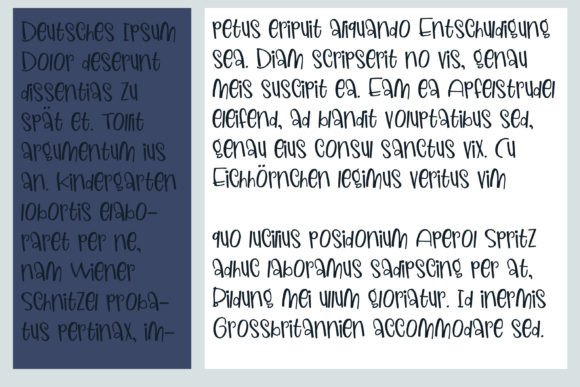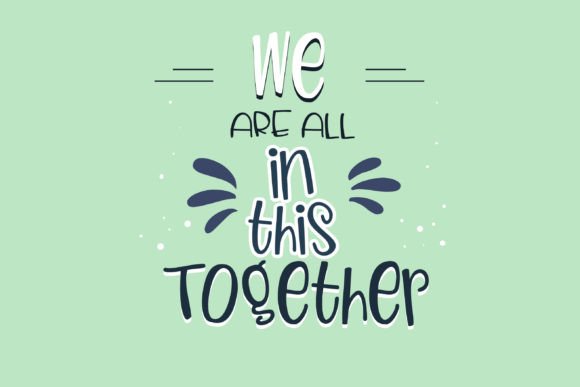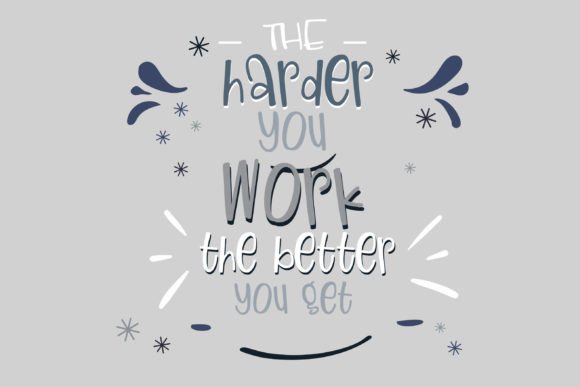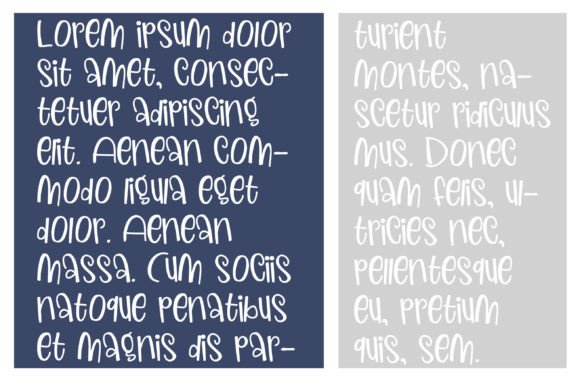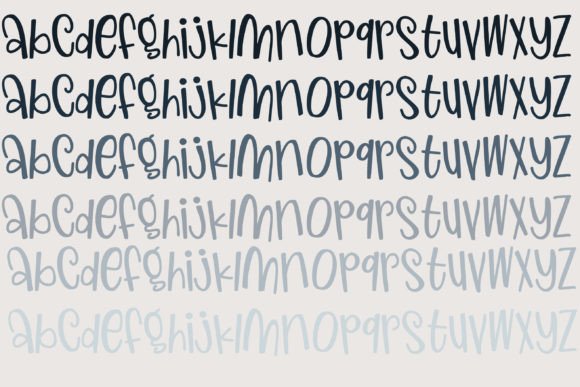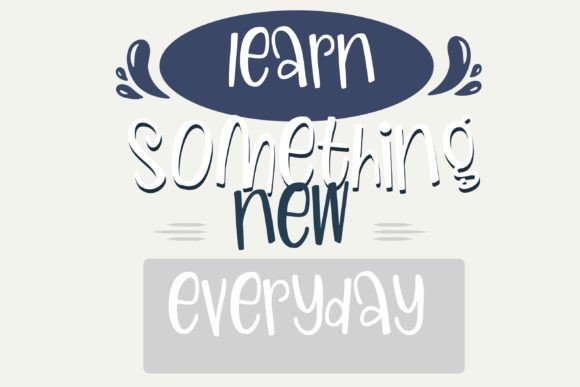
Introduction to Glucosamine Font
Do you remember that moment when you stumbled upon the perfect font for your design project? It’s like finding a needle in a haystack, but instead of a needle, it’s a beautiful, high-quality font that elevates your creative work. That’s exactly what we’re excited to introduce you to – the Glucosamine Font.
This hand-written sans serif font is a game-changer for designers, offering a youthful and whimsical touch that’s perfect for a wide range of applications, from greeting cards to headlines. Its unique style is sure to add a personal touch to your designs, making them stand out from the crowd. And the best part? You can add it to your project with confidence, knowing that it’s a valuable design resource that will deliver impressive results.
Key Features of Glucosamine Font
- High-quality design resource perfect for creative projects, offering a unique and stylish aesthetic.
- Includes 4 different font styles (Regular, Bold, Italic, and Bold Italic) to cater to various design needs.
- Glucosamine Font is a versatile design resource suitable for various creative projects, from branding and marketing materials to editorial and publishing content.
Honest Review: Glucosamine Font
I recently stumbled upon the Glucosamine Font, and I must say it’s been a great addition to my design resource library. As a designer, I’m always on the lookout for high-quality fonts that can elevate my creative projects. The Glucosamine Font definitely delivers.
- ✨ High-quality design: The font has a clean and modern aesthetic, making it perfect for a wide range of applications.
- ✨ Versatility: The Glucosamine Font is highly versatile and can be used for both digital and print projects.
One thing to note is that the font doesn’t come with a lot of variations or styles, so if you’re looking for something with more options, you might be disappointed. Additionally, the transparent background might not be suitable for all design projects. ⚠️
Overall, I’m impressed with the Glucosamine Font. It’s a solid choice for designers looking for a reliable and high-quality font. With its clean design and free download, it’s definitely worth checking out. Just be aware of its limitations, and you’ll be all set for a successful design project.
Experiment with different font sizes and colors to achieve the desired look. Use the font in combination with other design elements to create a visually appealing design. Consider using the font in a variety of creative projects, such as logos, brochures, and infographics.
The Glucosamine Font is a versatile design resource that can be used in a variety of creative projects. Some common use cases include:
- Infographics and data visualizations